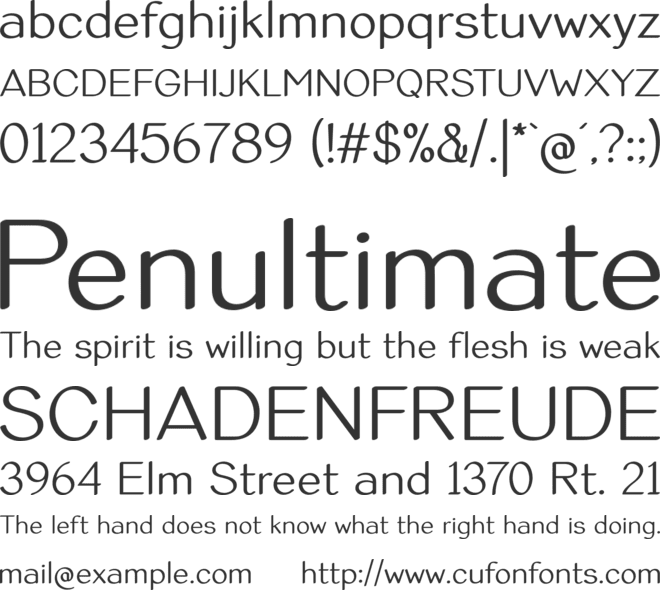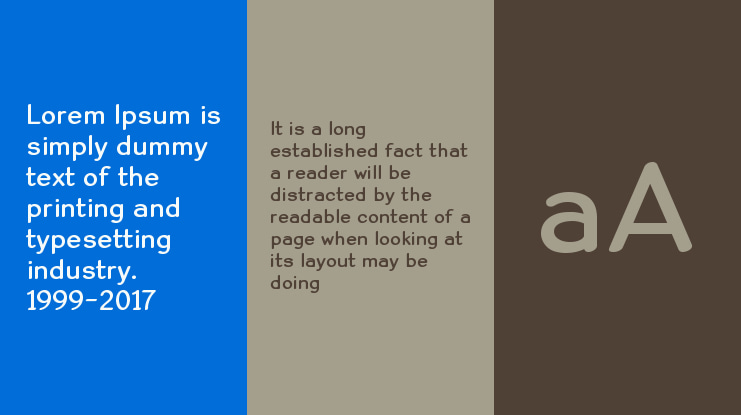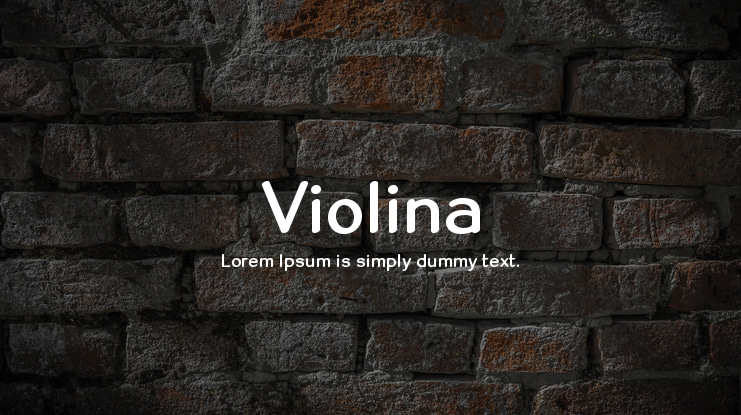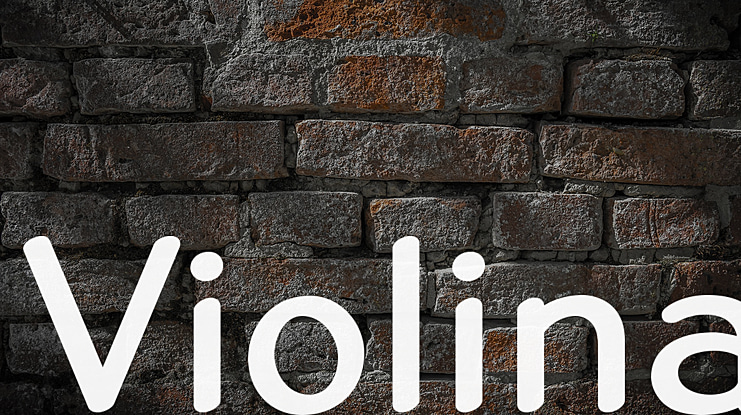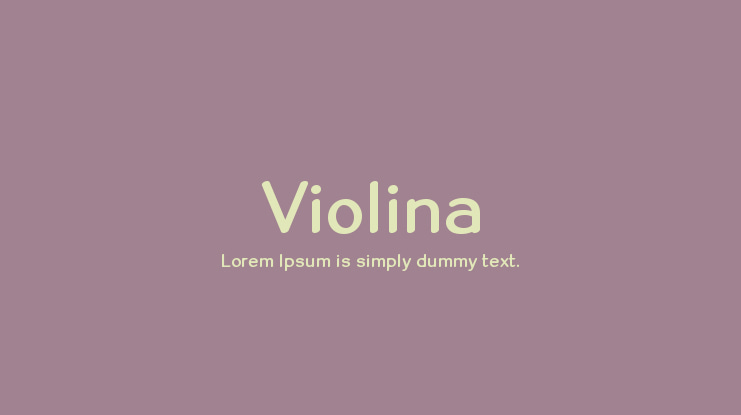
Violina Font Family
Introducing Violina Font Family! Simple, smooth and elegant. It is nice for feminine and elegant theme. Each font contain 381 glyph with complete punctuation and supported to Latin, Eastern Europe and Turkish language. This font have 3 weight (regular, semibold, and bold) so you have choice how weight you need.